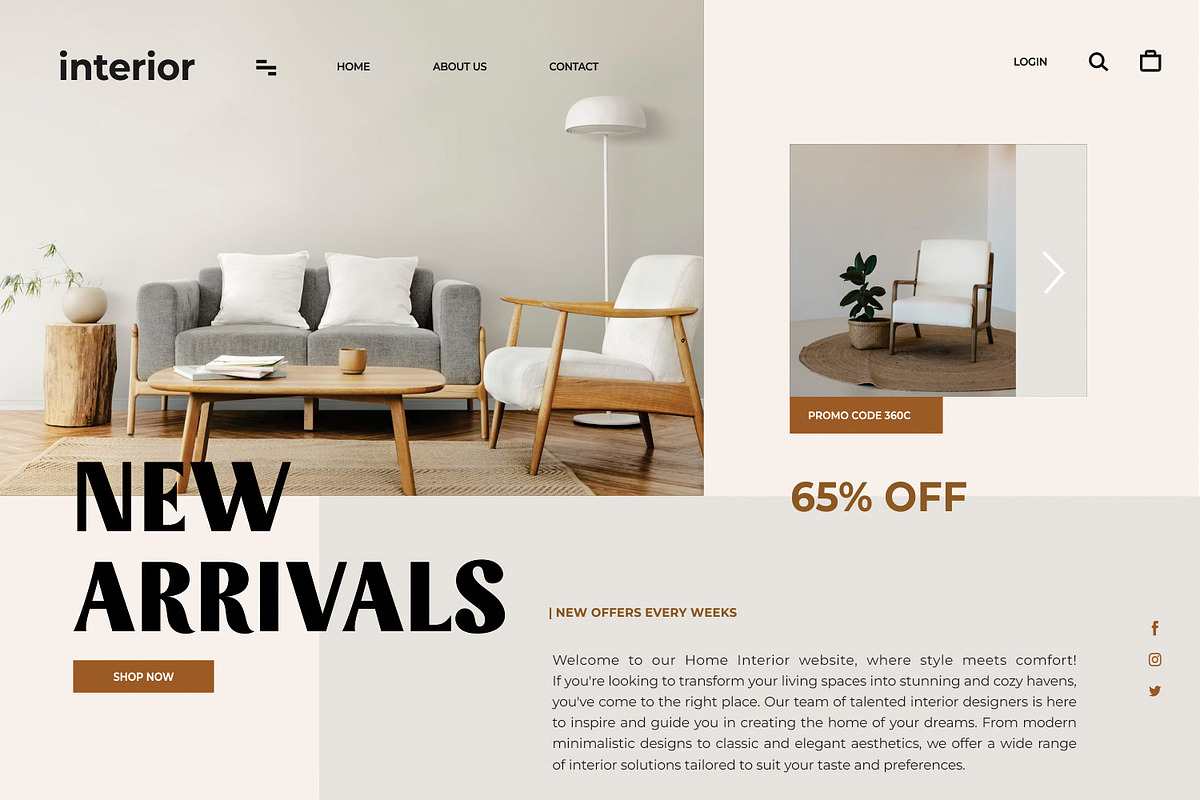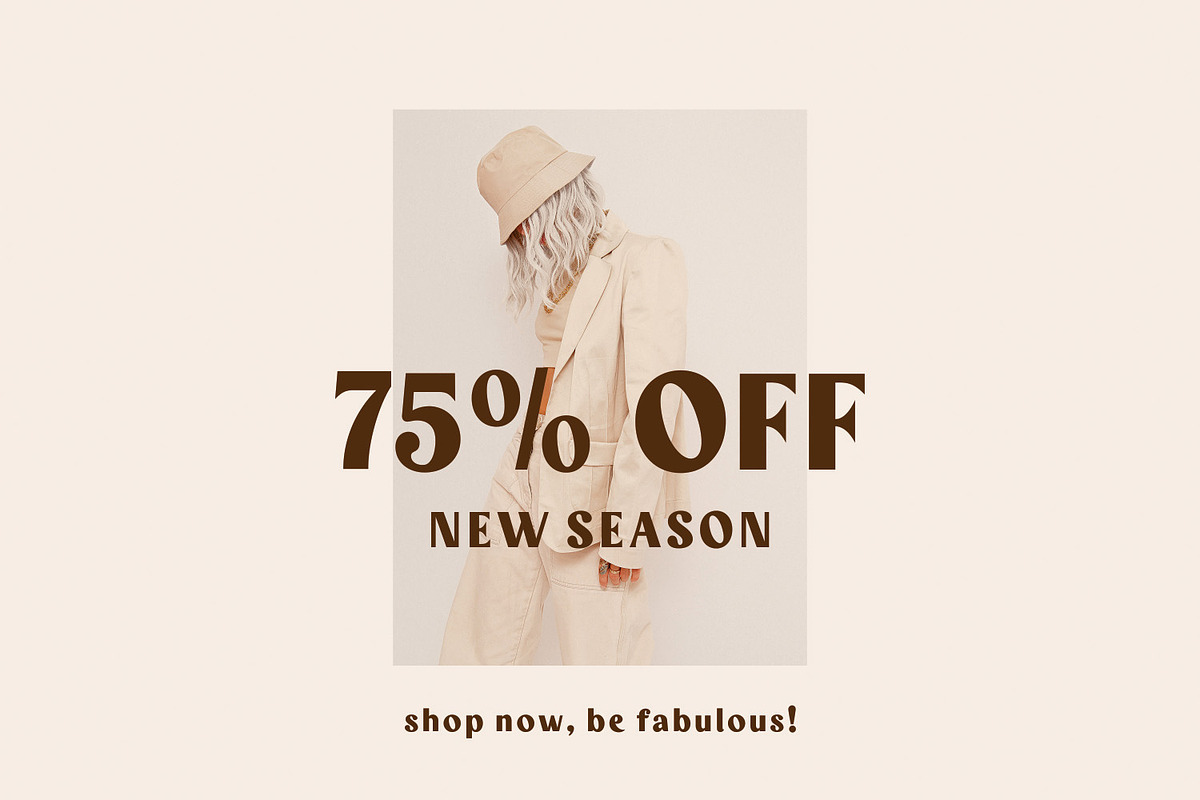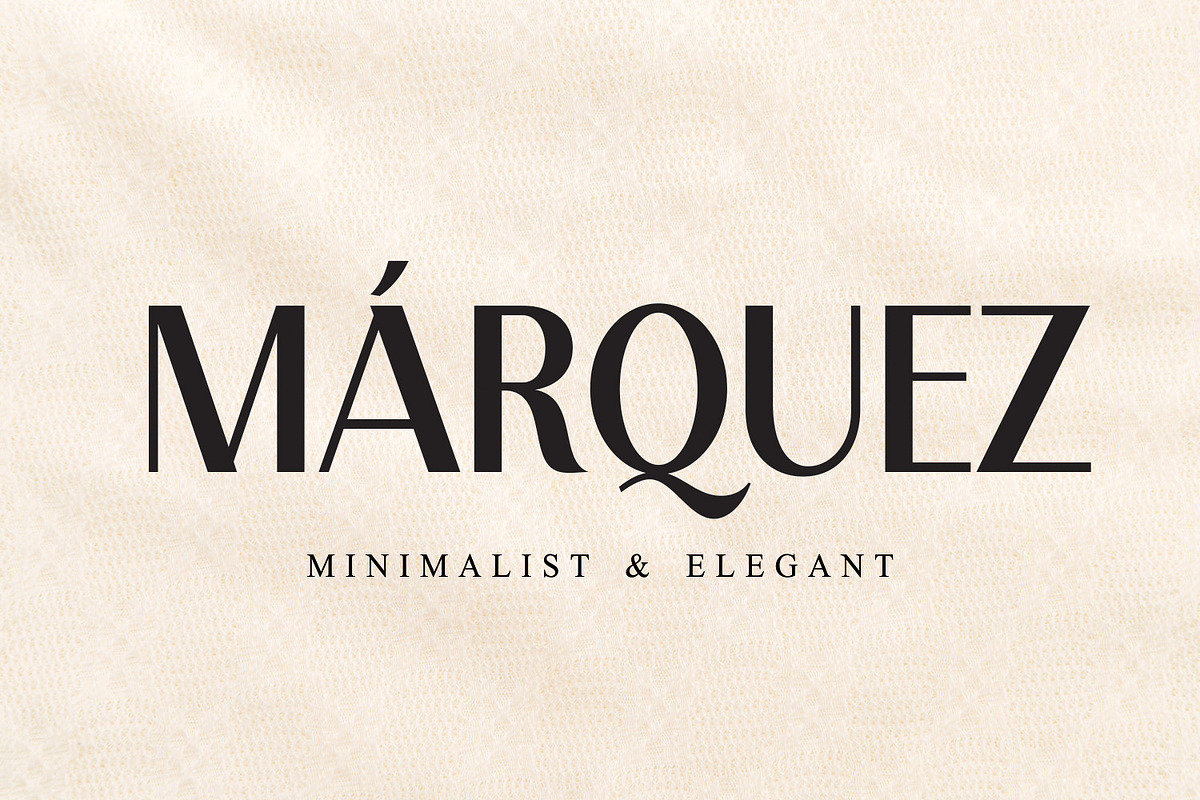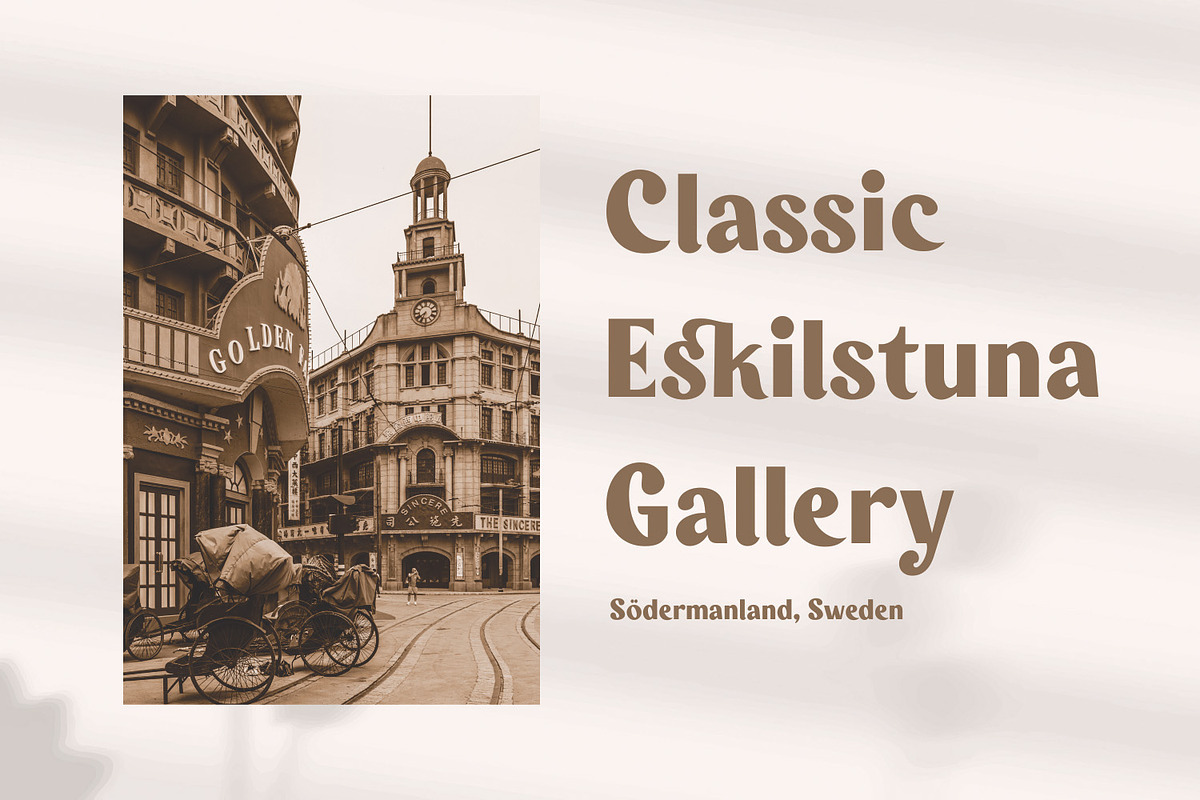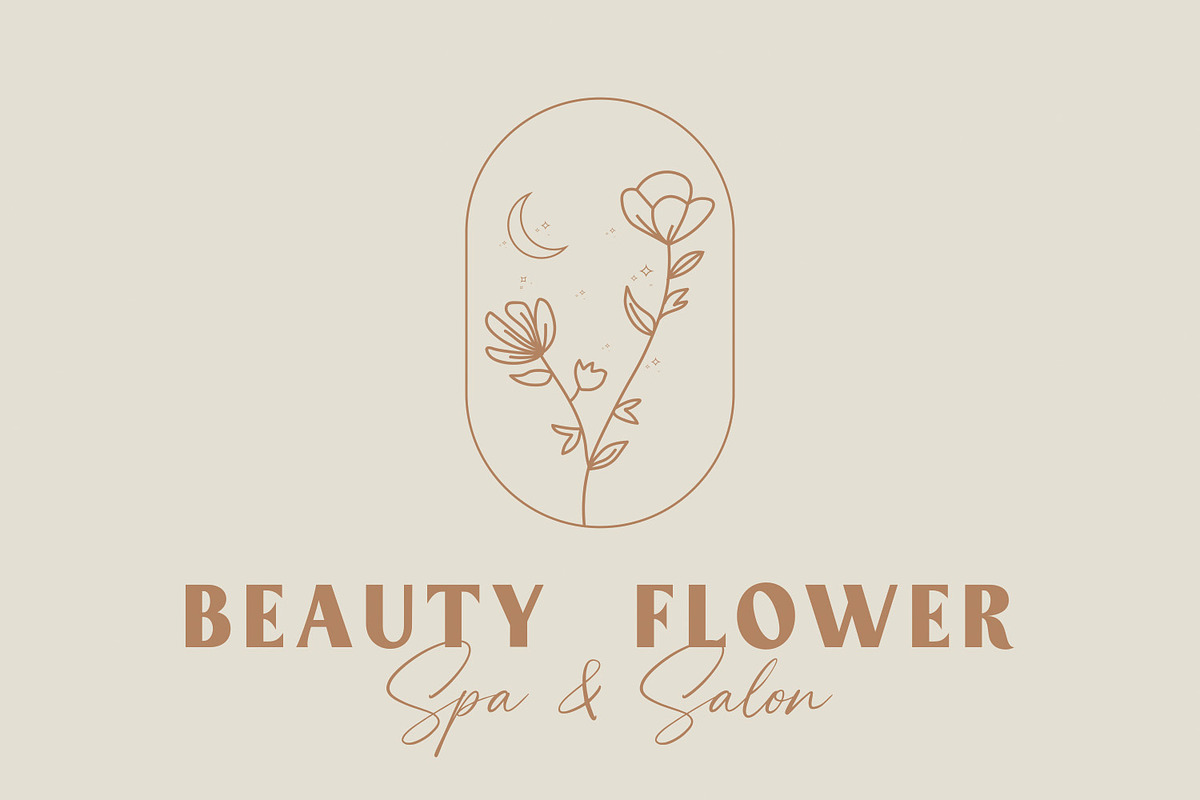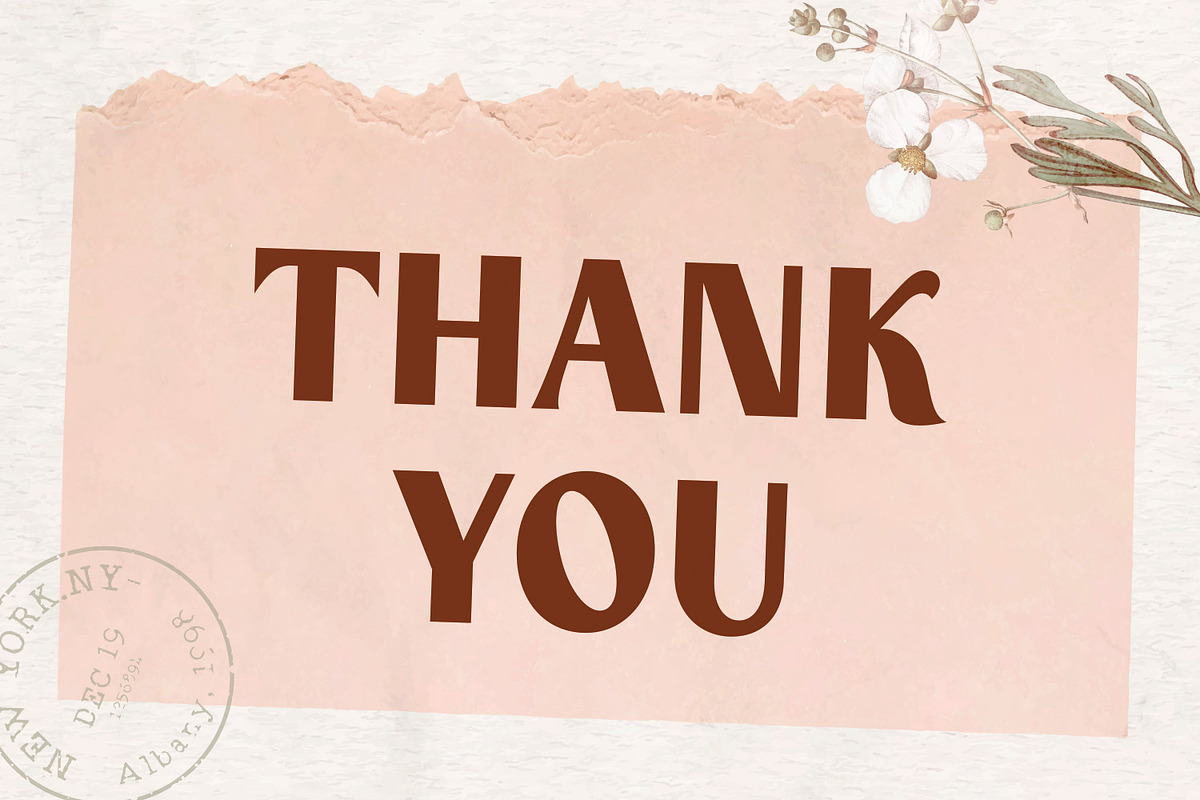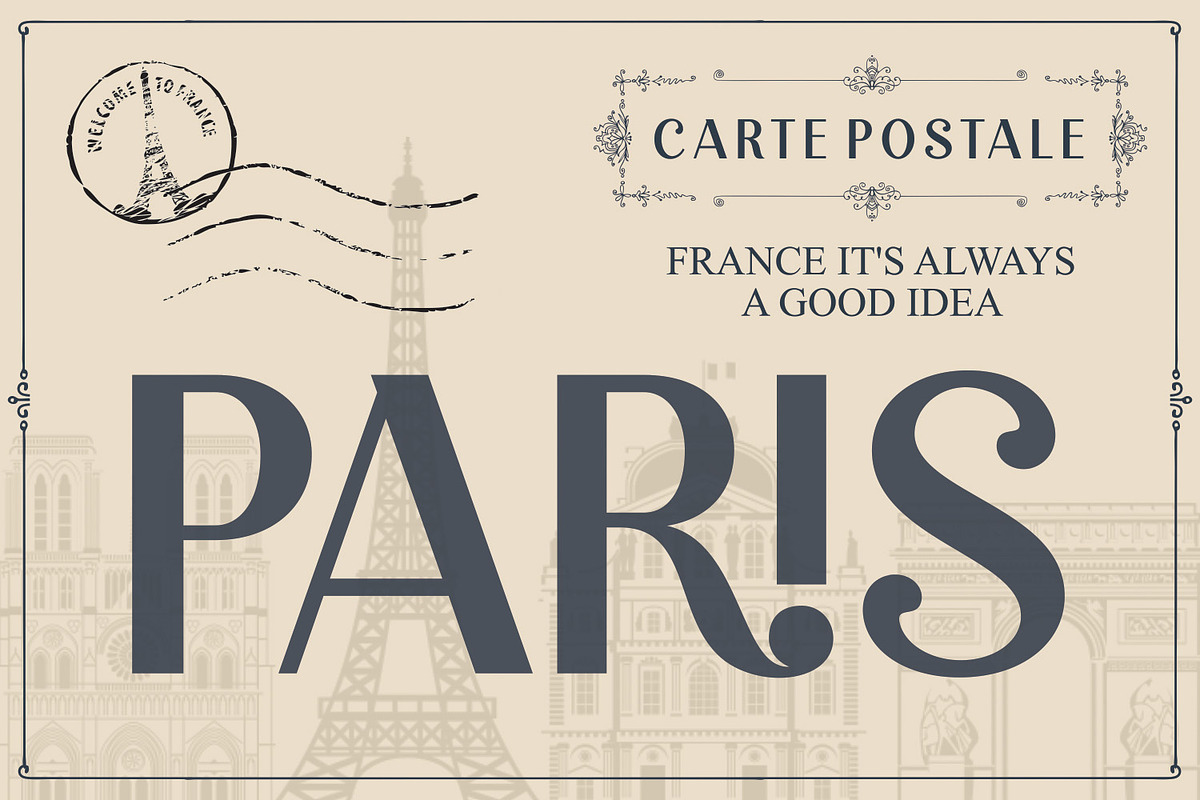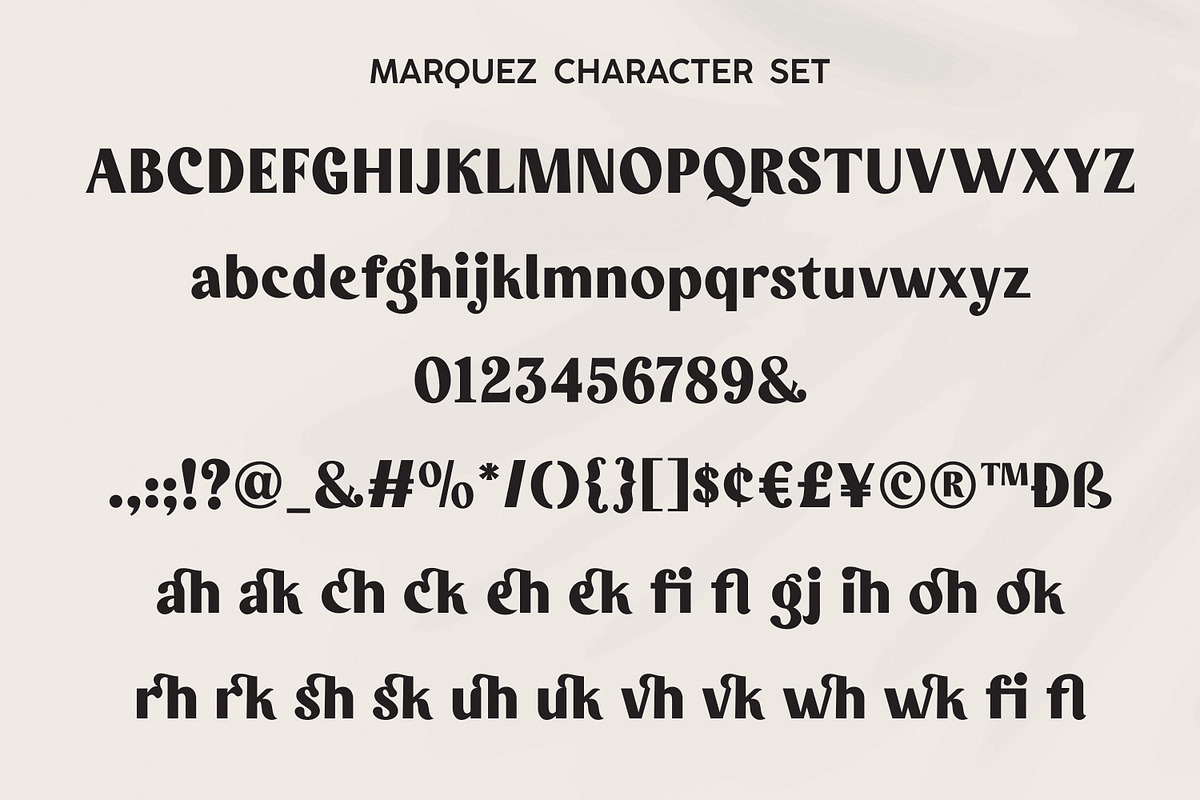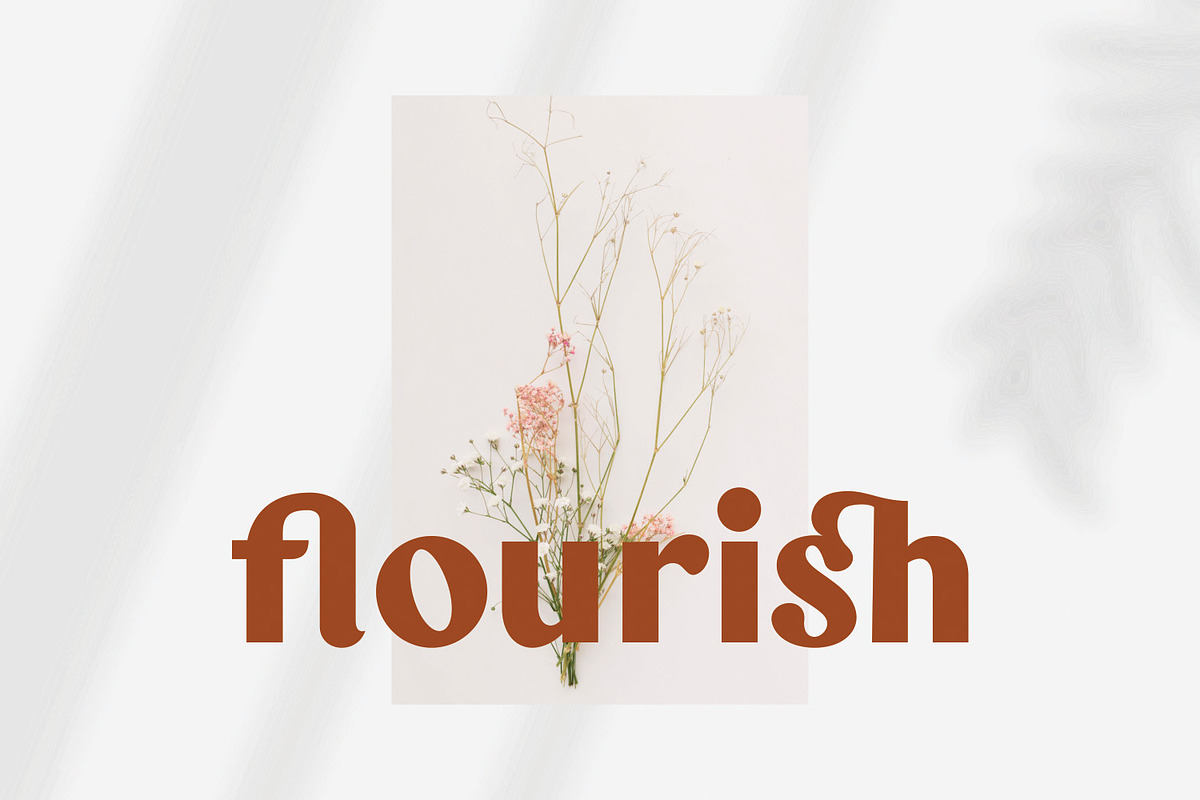
MARQUEZ
Introducing "MARQUEZ" Typeface: The Perfect Blend of Boldness and Elegance
MARQUEZ is a stunning sans serif font that embodies the essence of strength and sophistication. With two captivating styles – Regular and Italic – it provides a versatile typographic solution for all your creative endeavors. This typeface is specifically designed to make your posters, banners, and advertisements stand out from the crowd.
The Regular style of MARQUEZ boasts a commanding presence, thanks to its bold and confident letterforms. Its clean lines and balanced proportions ensure exceptional readability, making it ideal for delivering impactful messages. Whether you're aiming to grab attention or create a strong visual hierarchy, MARQUEZ Regular is the perfect choice.
For a touch of elegance and added flair, the Italic style of MARQUEZ offers a unique twist to your designs. Its subtly slanted letterforms exude a sense of dynamism, allowing you to infuse a touch of personality into your creations. Use MARQUEZ Italic to add a touch of sophistication to your headlines or to emphasize important details that deserve to be noticed.
Experience the versatility of MARQUEZ as it effortlessly enhances the visual impact of your promotional materials. From eye-catching posters to attention-grabbing banners, and compelling advertisements, this font will captivate your audience and leave a lasting impression.